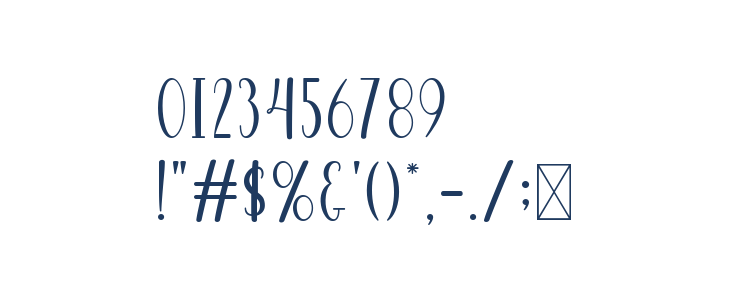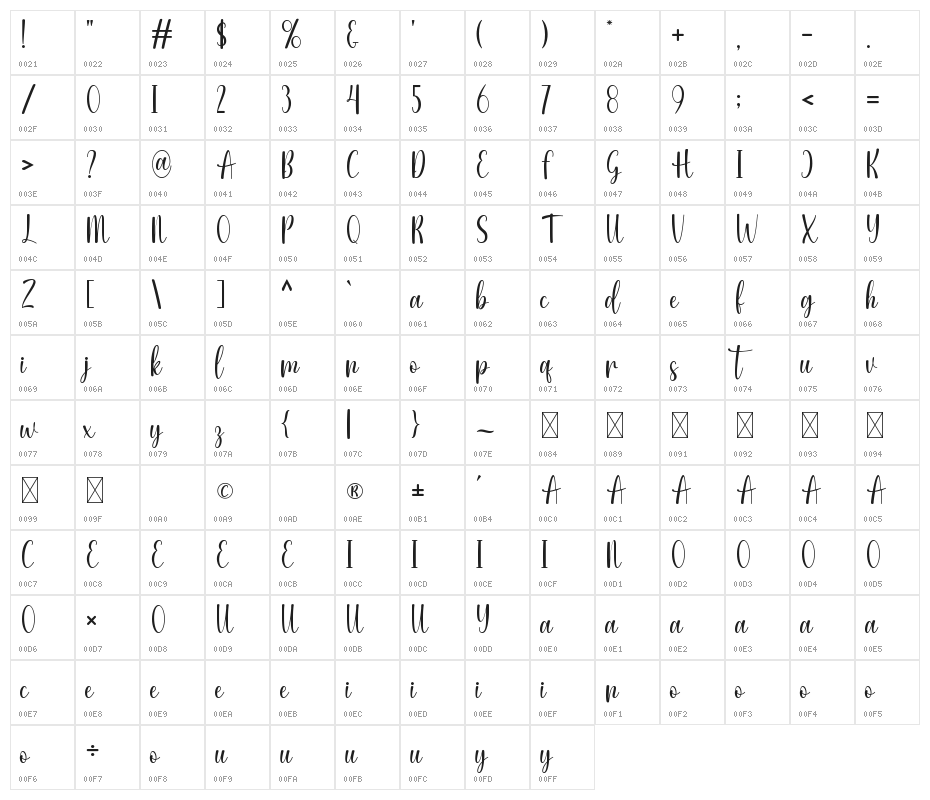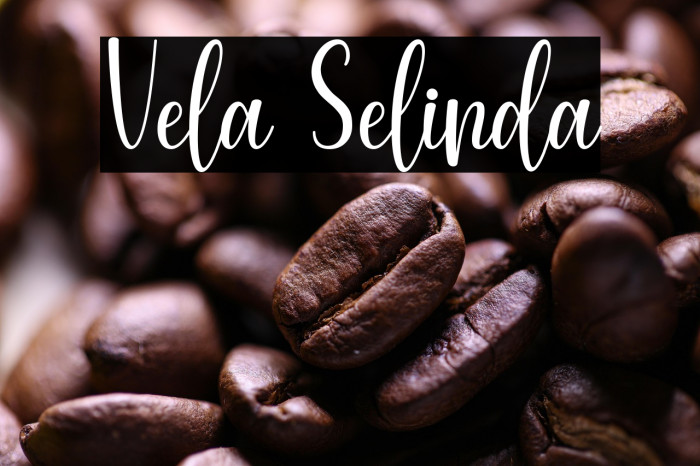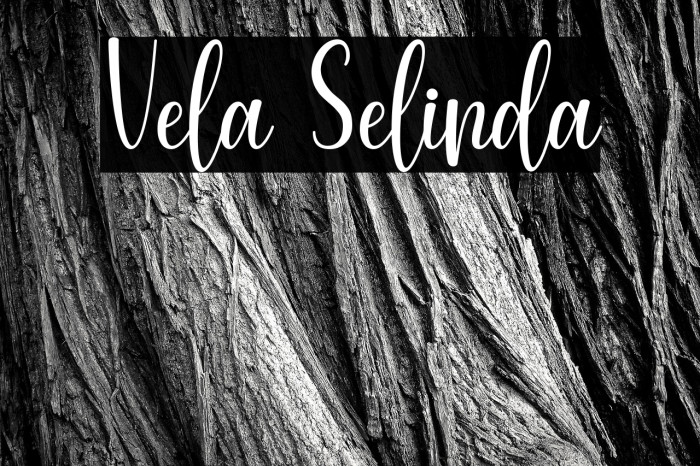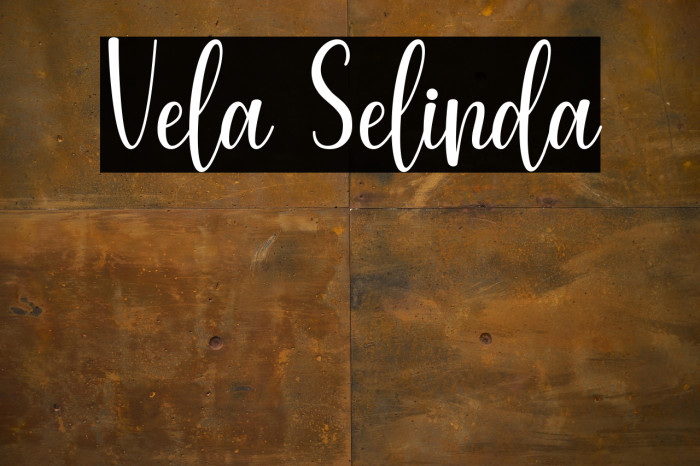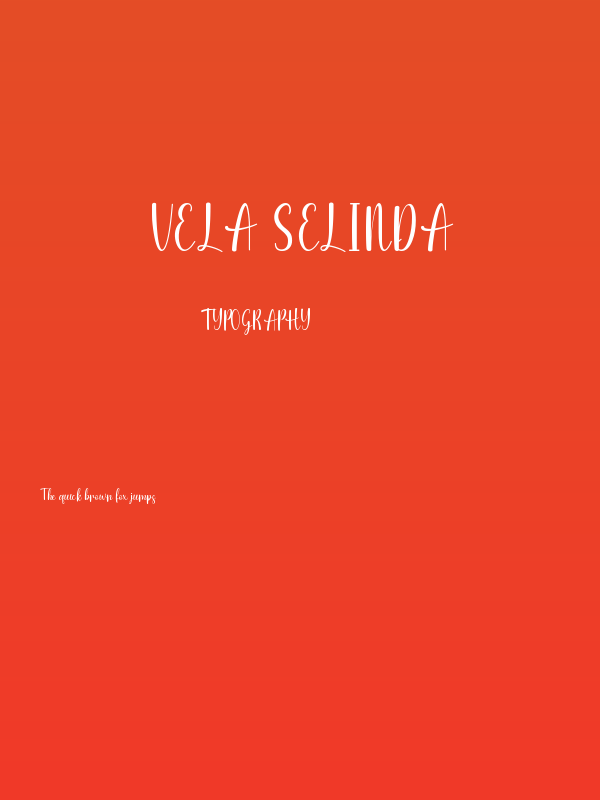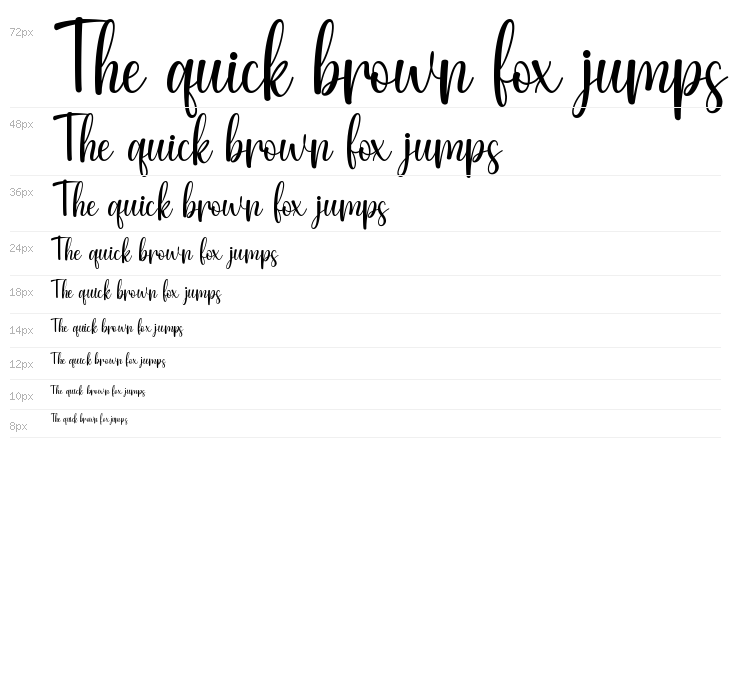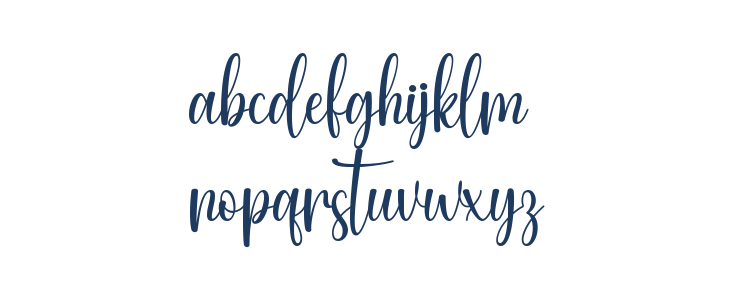
Vela Selinda Font
Vela Selinda Description
This font features a playful and elegant script style, characterized by its flowing, cursive letterforms. The uppercase letters are tall and slightly narrow, with a whimsical flair that adds a touch of sophistication. The lowercase letters maintain a consistent flow, with smooth curves and loops that create a harmonious appearance. The numbers are clear and easy to read, complementing the overall style with their balanced proportions. Special characters are designed to match the script's fluidity, ensuring a cohesive look across all text elements. This font is ideal for projects that require a personal touch, such as invitations, greeting cards, or branding materials.